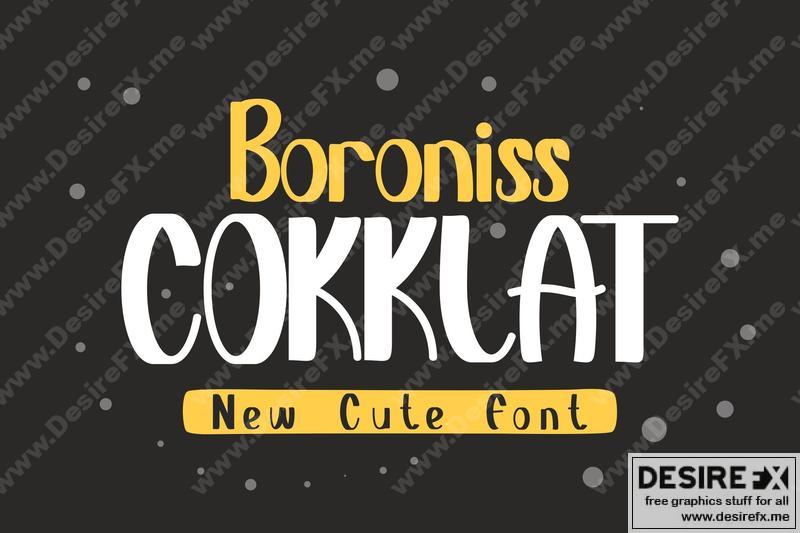
Boroniss cokklat font 3X2ZBP4
Introducing our new product the name is Boroniss cokklat font. Modern Serif font that feels beautiful classy, elegant, and modern. This font is perfectly suited for a wide variety of projects, such as signature, stationery, logo, wedding, typography quotes, magazine or book cover, website header, clothing, branding, packaging design, and more. Also, fashion-related branding or editorial design displays both masculine and feminine qualities.